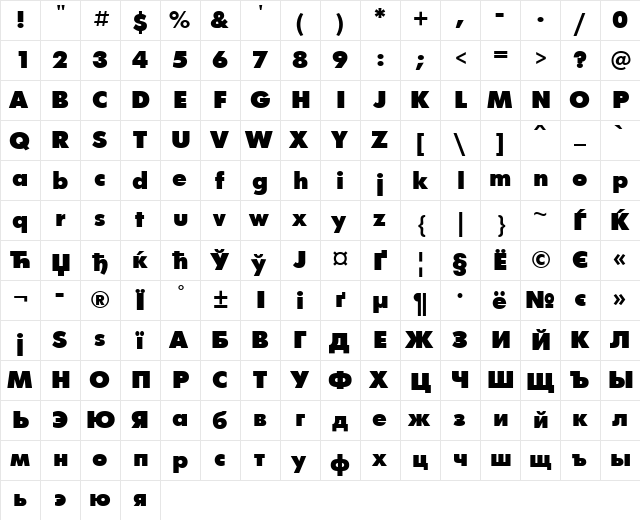
FuturaFuturisXC Regular
Design Context for FuturaFuturisXC Typeface
FuturaFuturisXC has a distinctly futuristic character, with geometric precision and clean angles that feel at home in technology, gaming, and sci-fi contexts.
Pro Tip: Try FuturaFuturisXC with generous letter-spacing in UI labels and navigation — the geometric forms benefit from room to breathe.